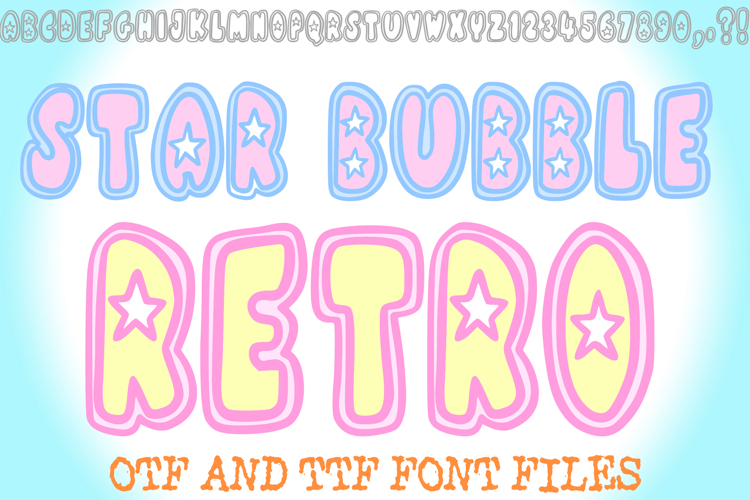
Step into a world of celestial charm with the Star Bubble Retro Font, a playful and high-energy display typeface designed to make your headlines shine! This handmade font features bold, chunky "puffy" characters with a stylish double-outline effect that gives every letter a professional, layered look. Each character is infused with a retro-meets-modern vibe, making it a perfect choice for creators who want an approachable yet decorative aesthetic.
The standout feature of this font is the collection of tiny, hand-drawn stars nested inside the letters and numbers, creating an instant "sparkle" or "magic" effect. This font captures a whimsical, doodled feel that is both fun and easy to read. Whether you are designing for a nursery, a birthday party, or a trendy lifestyle brand, Star Bubble Retro adds a cohesive and magical touch to your typography.